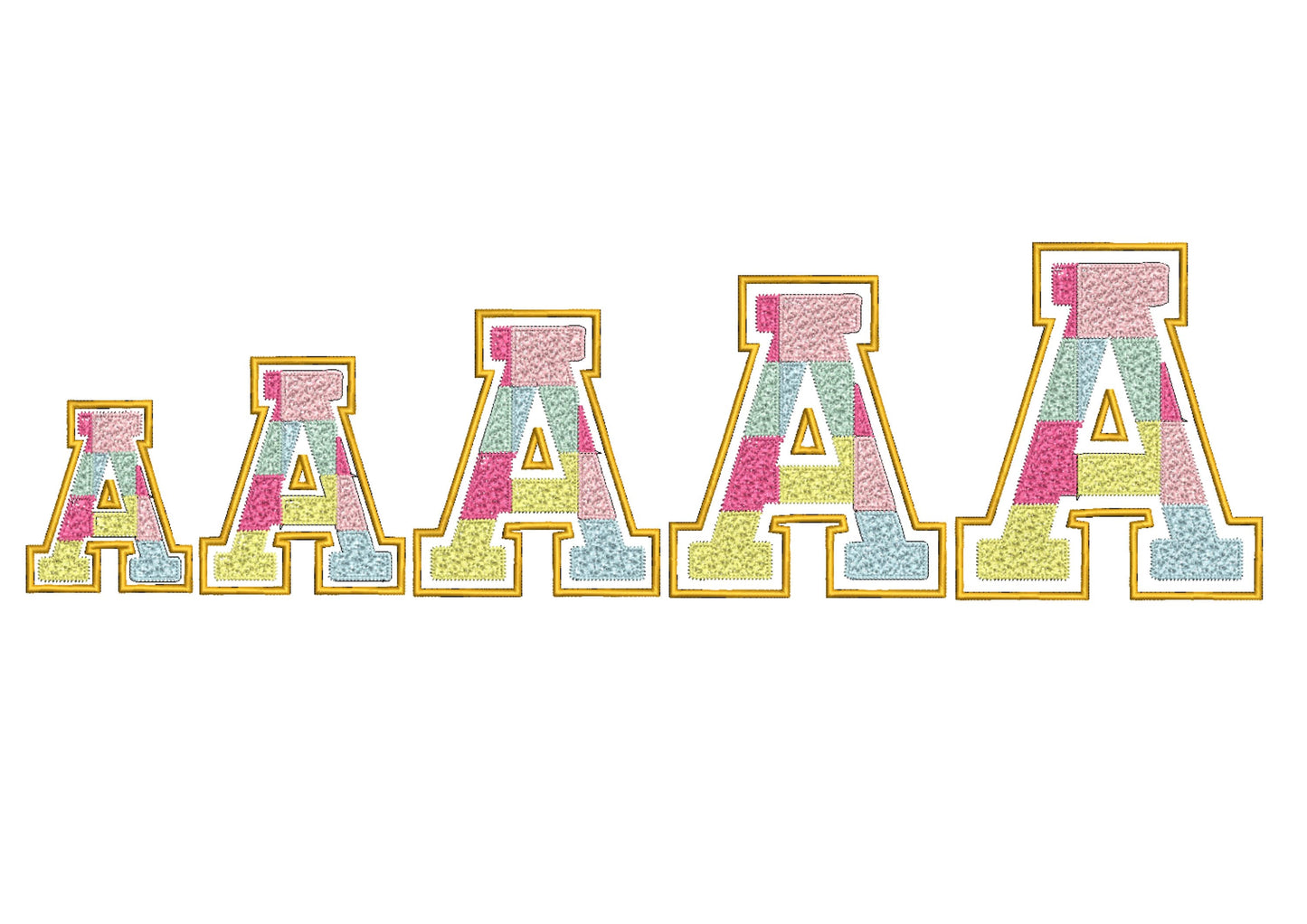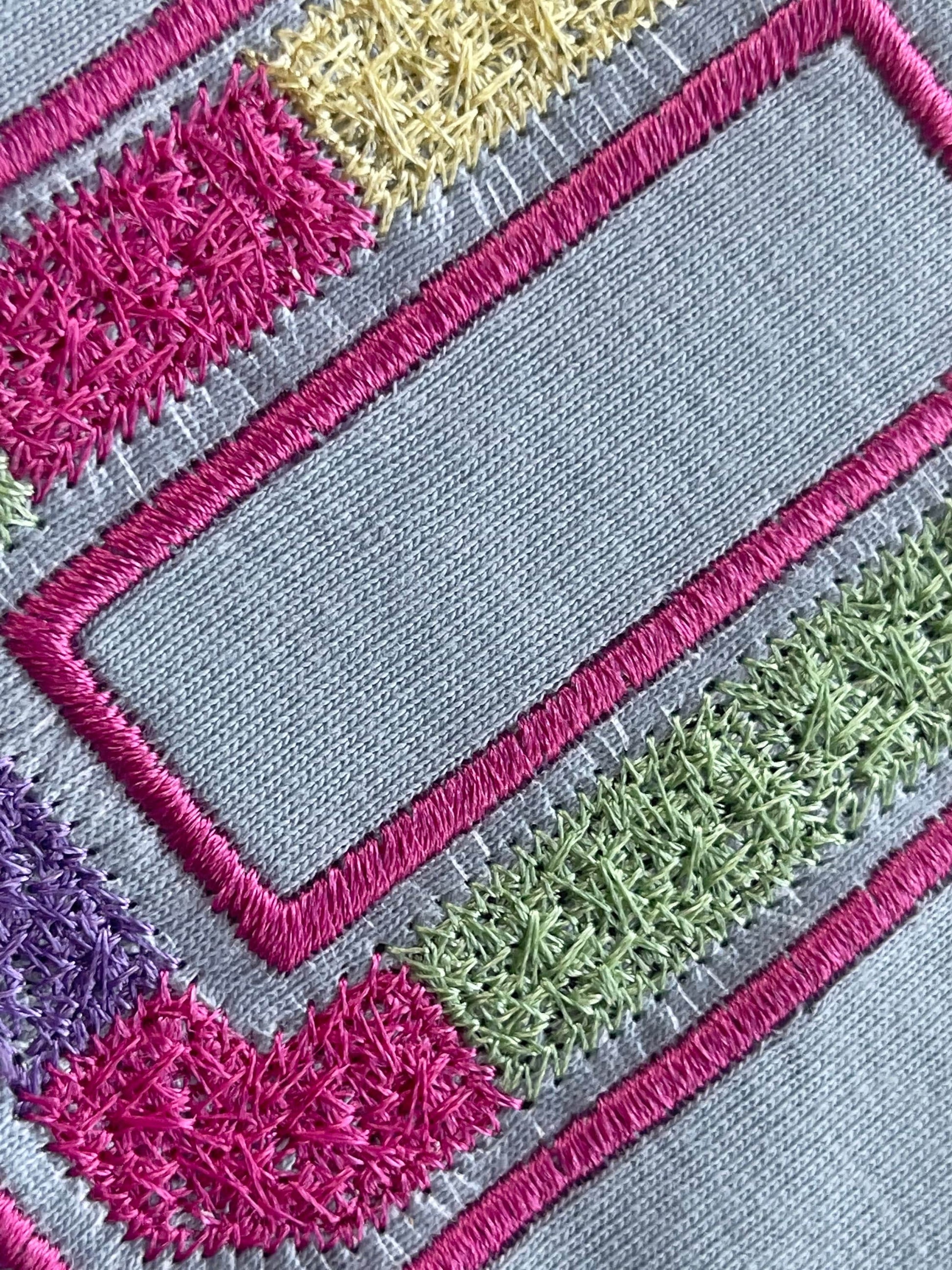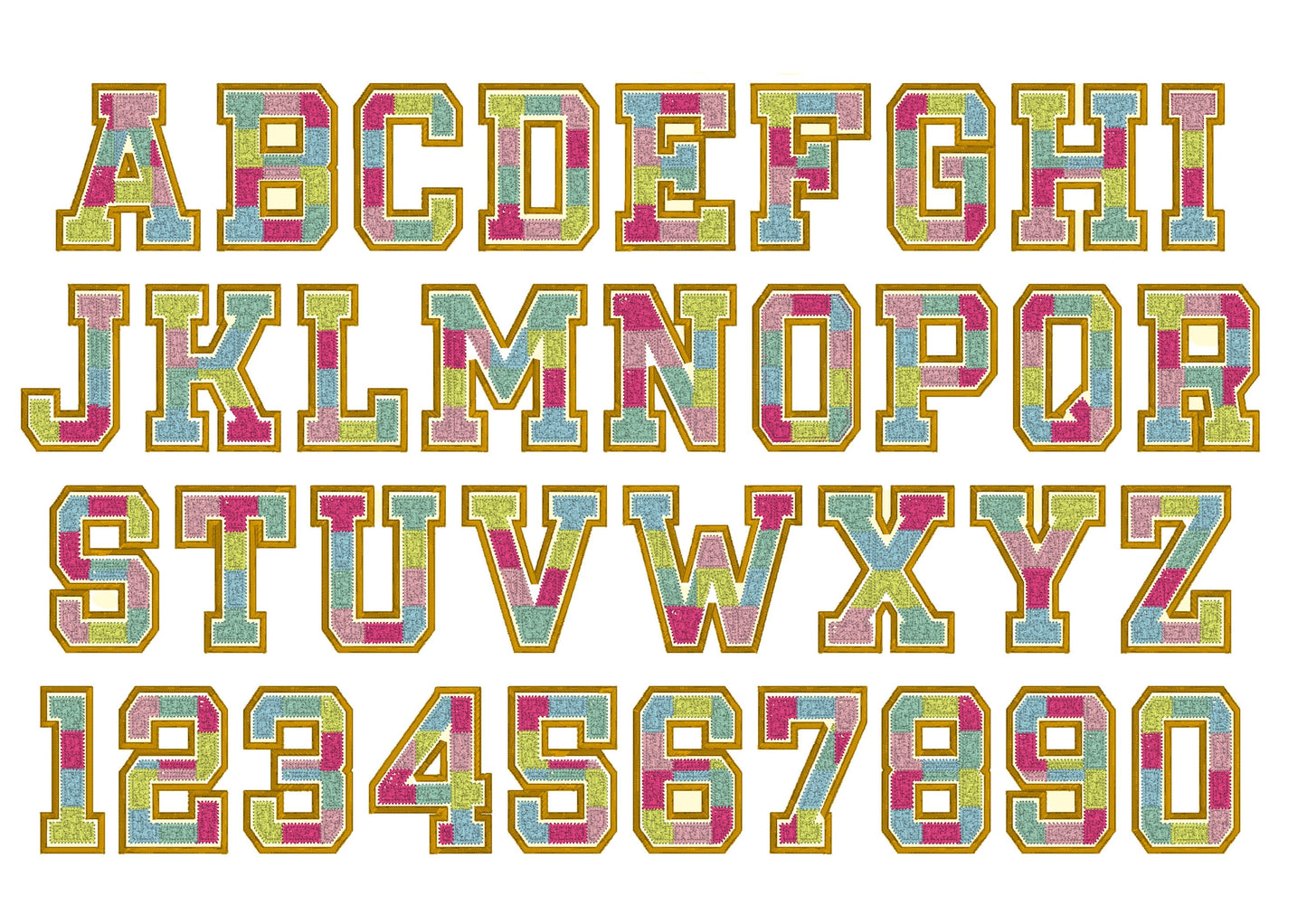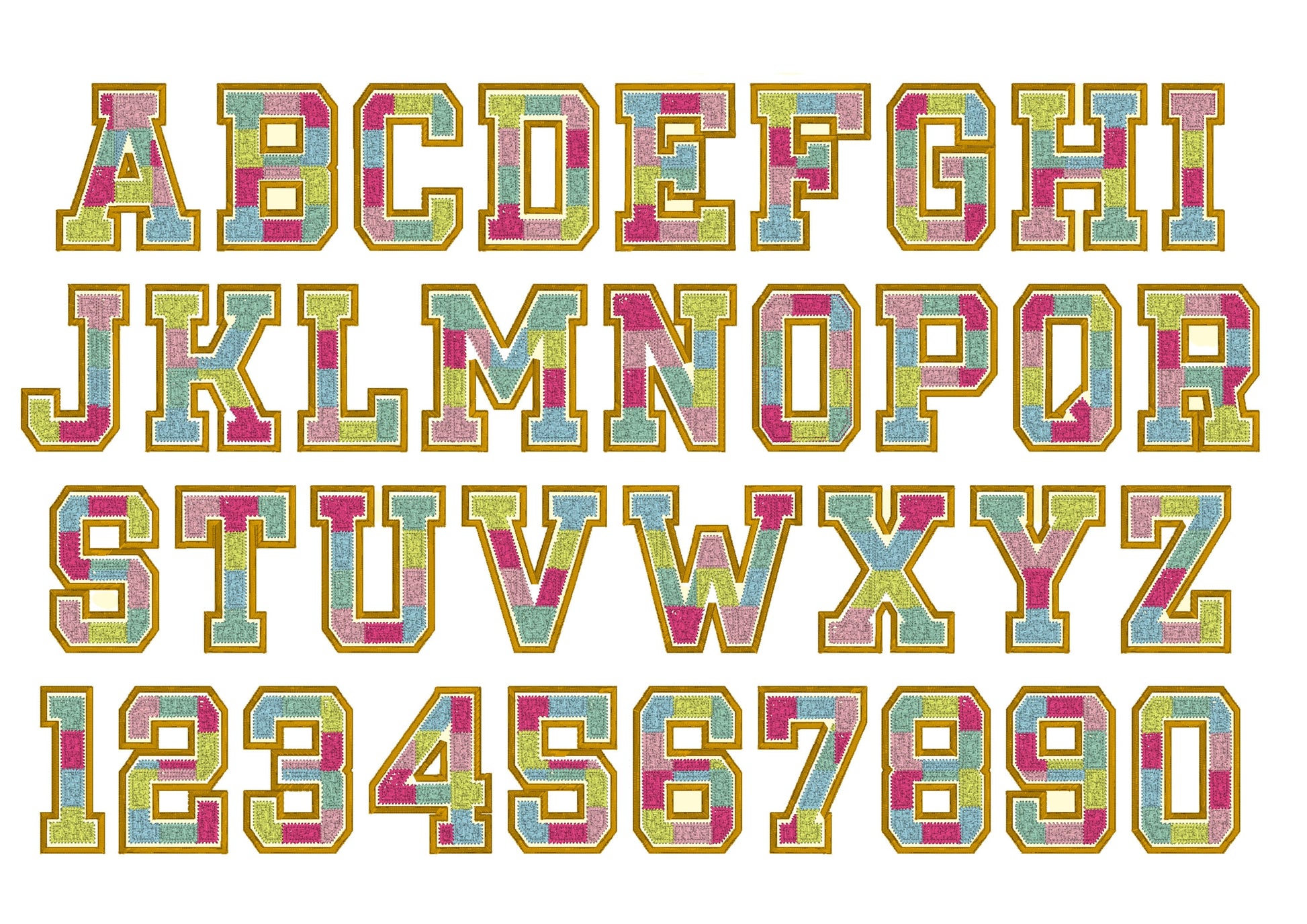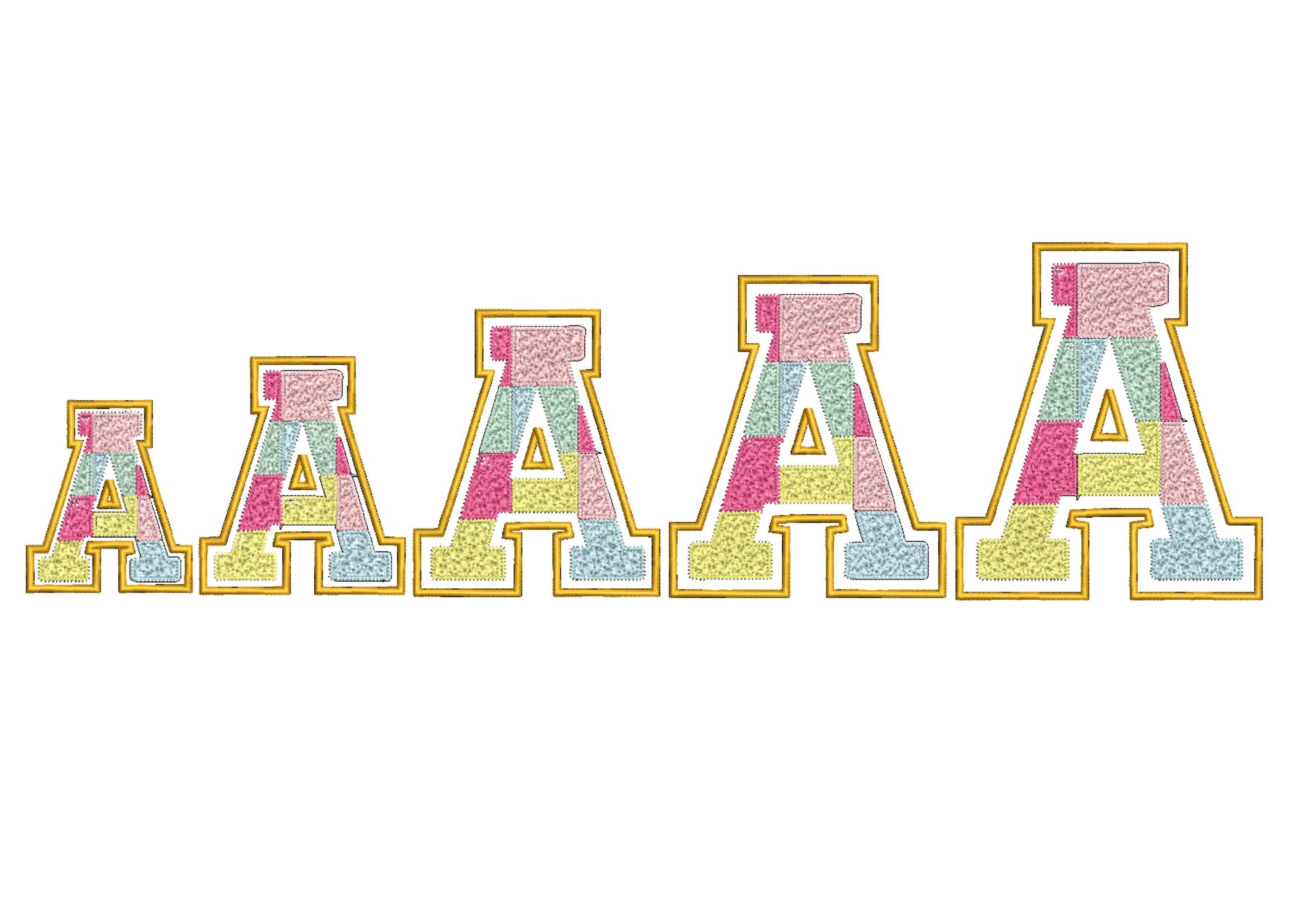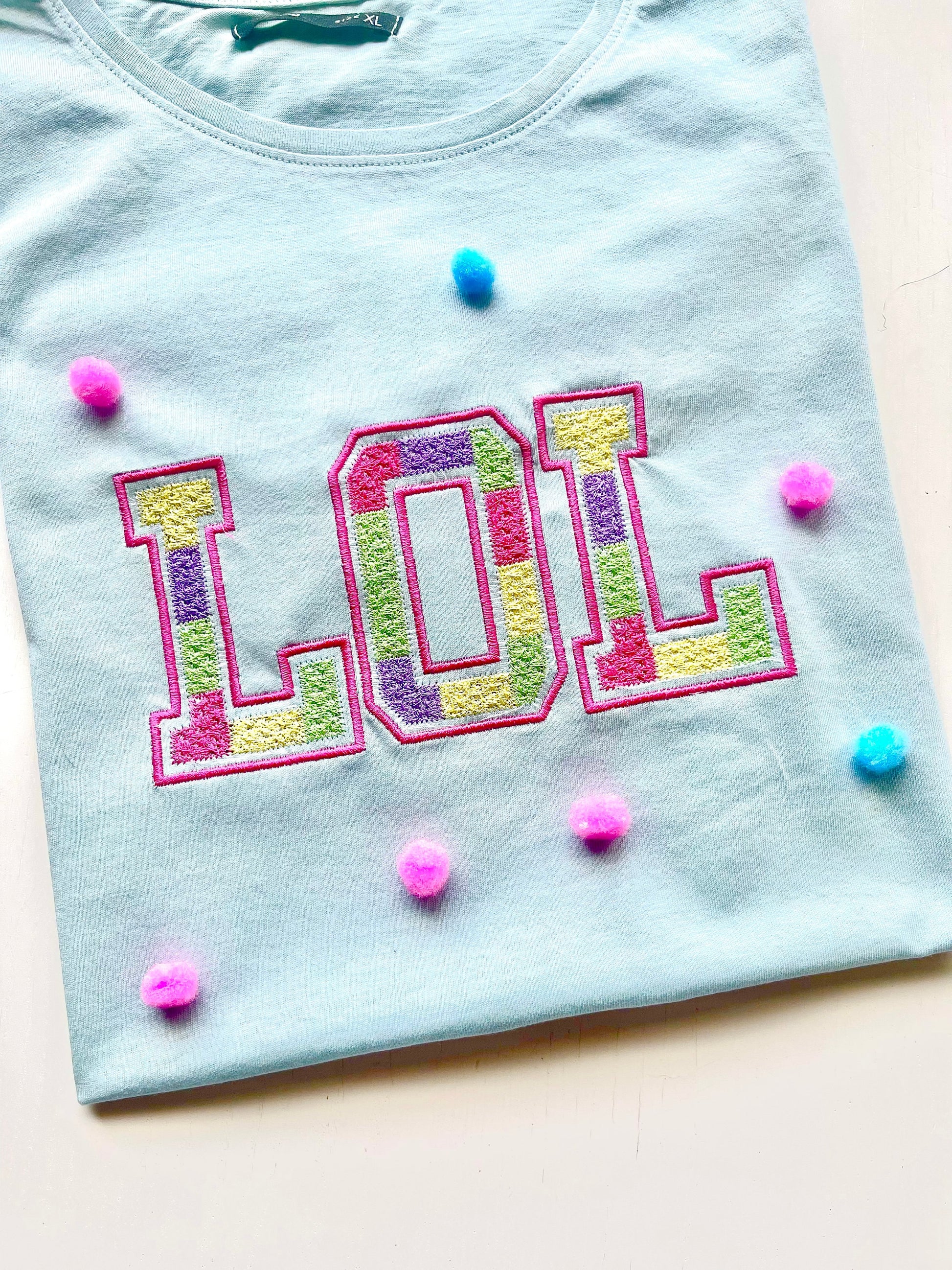
Or click to open the linkA varsity font that looks like a real chenille patch. Classic for letterman jackets, team shirts, sweatshirts and bags.
Uppercase letters A to Z and numbers 0 to 9 in five sizes: 3, 4, 4.5, 5 and 6 inches.